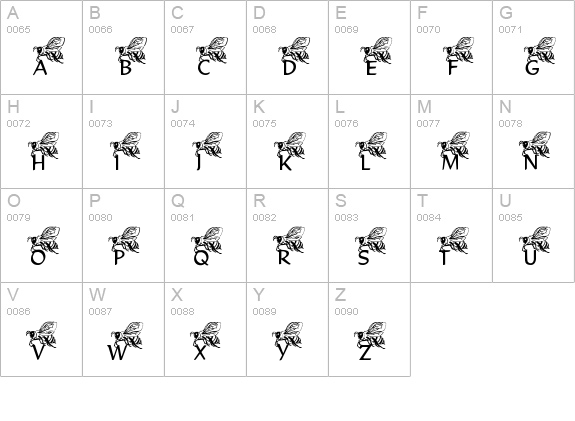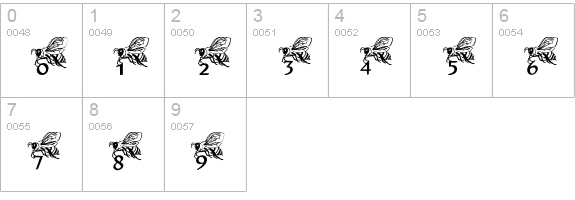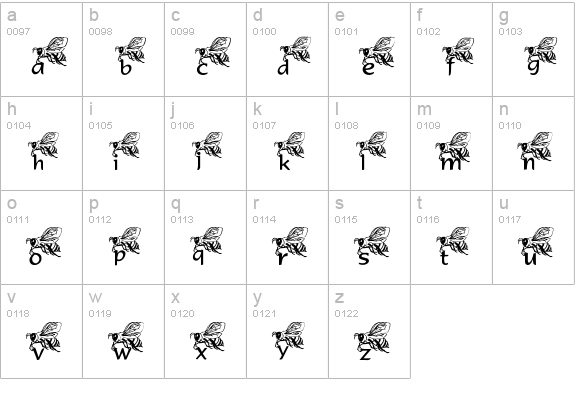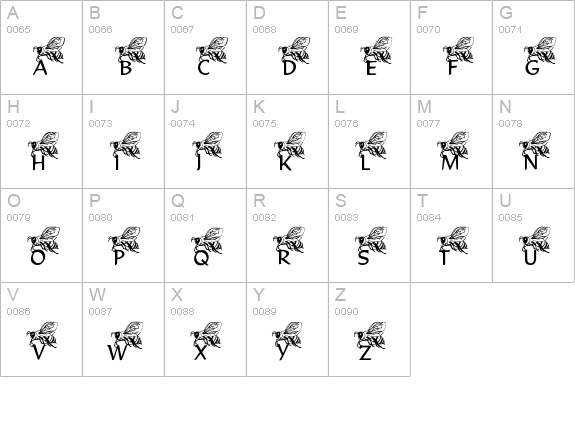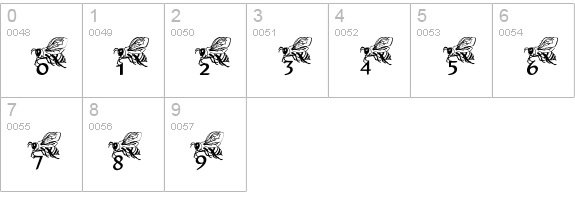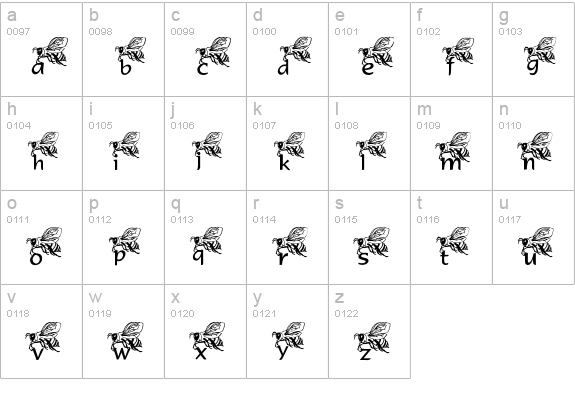
Helpful Hunny Bee Font Details
Introducing Helpful Hunny Bee, a whimsical and charming font that will add a touch of sweetness to any design project. This font was carefully crafted with the utmost attention to detail, resulting in a delightful typeface that captures the essence of a buzzing honey bee fluttering through a field of flowers. With its playful curves and elegant strokes, Helpful Hunny Bee is a versatile font that can be used for a variety of purposes. Whether you're designing a logo, creating a greeting card, or crafting a children's book, this font will bring a sense of joy and cheerfulness to your work. One of the best things about Helpful Hunny Bee is that it is completely free! Yes, you read that right – this amazing font is available to download at FontsMarket.com without any cost. Now you can enjoy the beauty and charm of Helpful Hunny Bee without breaking the bank. But don't let its price tag fool you – Helpful Hunny Bee is a high-quality font that rivals even the most expensive options on the market. Its clean and clear letterforms ensure legibility, while its unique style sets it apart from the crowd. Whether you're a professional designer or a hobbyist, you can trust that Helpful Hunny Bee will elevate your designs to new heights. So why wait? Head over to FontsMarket.com and download Helpful Hunny Bee today. Let this font be your little helper, adding a touch of whimsy and sweetness to your creative endeavors. Get ready to create designs that are as delightful as a jar of honey, all thanks to the freely available Helpful Hunny Bee font.